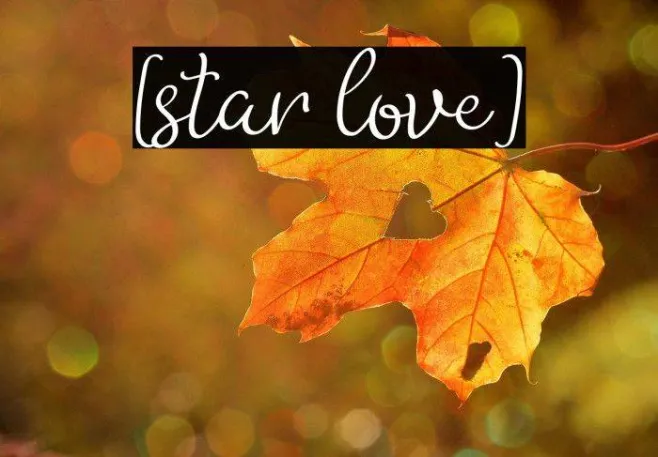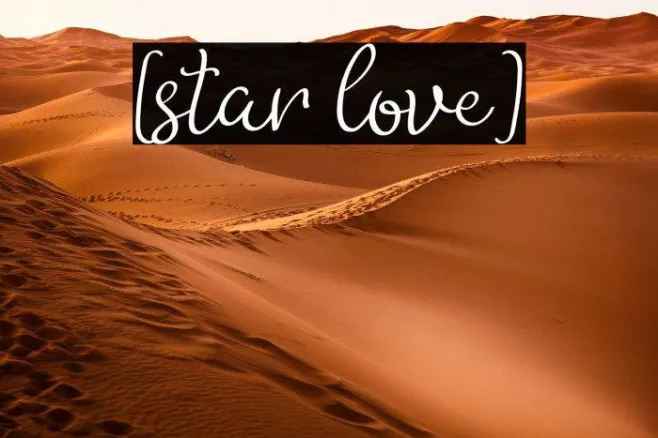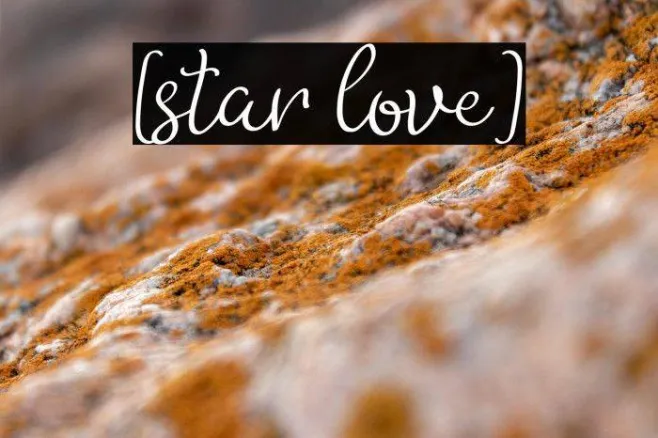
[star love] Font
[star love] Description
This font exudes a playful and romantic charm, characterized by its flowing, cursive script style. The letters are elegantly connected, with a smooth and continuous stroke that gives it a handwritten feel. The uppercase letters are slightly more ornate, with subtle flourishes that add a touch of sophistication. The lowercase letters maintain a consistent flow, enhancing readability while preserving the font's artistic flair. Numbers and special characters are designed to match the overall aesthetic, ensuring a cohesive look across all text elements. This font is perfect for projects that require a personal and intimate touch, such as wedding invitations, greeting cards, or love letters.
| Overall Style | Romantic, Playful |
| Use Case | Headlines, Invitations, Personal Branding |
| Proposed Projects | Ideal for wedding invitations, greeting cards, love letters, and personal branding. |